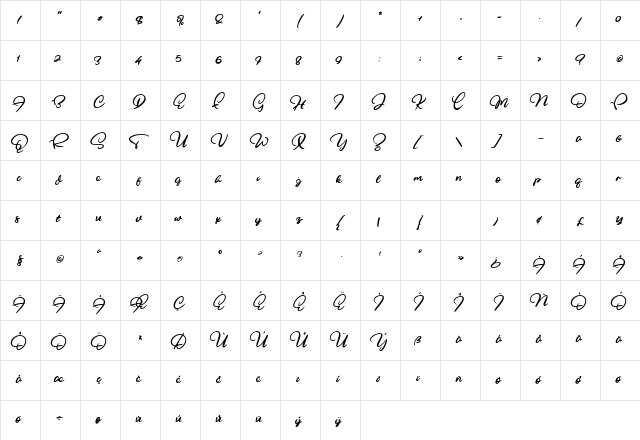
Elifia Girly Regular
Design Context for Elifia Girly Typeface
Elifia Girly is a composed and adaptable typeface that performs quietly and consistently across a wide range of design contexts.